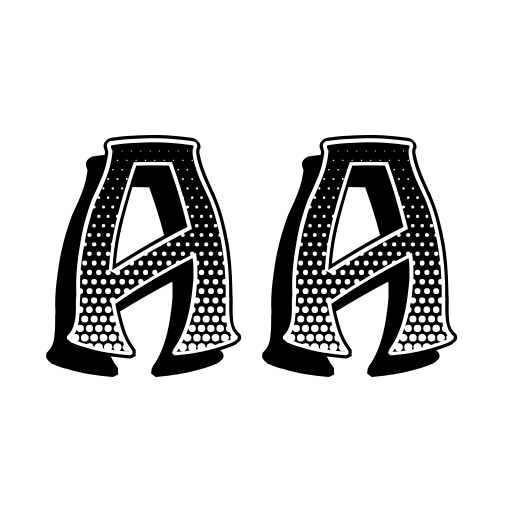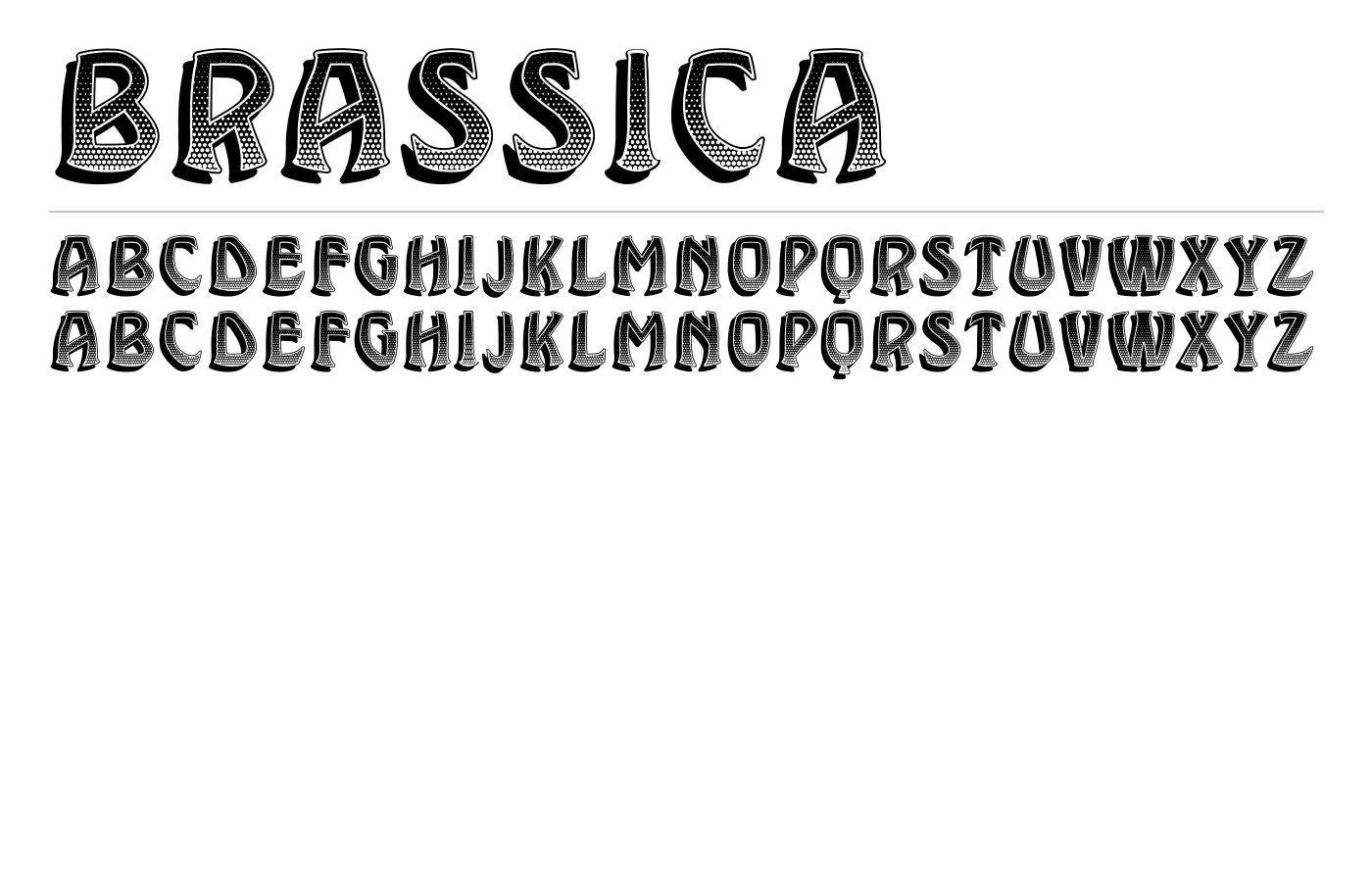
Brassica is a bold, decorative sans serif font with a distinctive vintage feel, featuring playful, textured fills and strong drop shadows that give it a three-dimensional look. Its quirky letterforms with uneven strokes and energetic shapes make it perfect for eye-catching headlines, branding, and packaging where a fun, retro personality is desired. This font brings a lively and nostalgic charm that works best in creative, informal design projects needing a bold statement.
Brassica Font
About Brassica Font